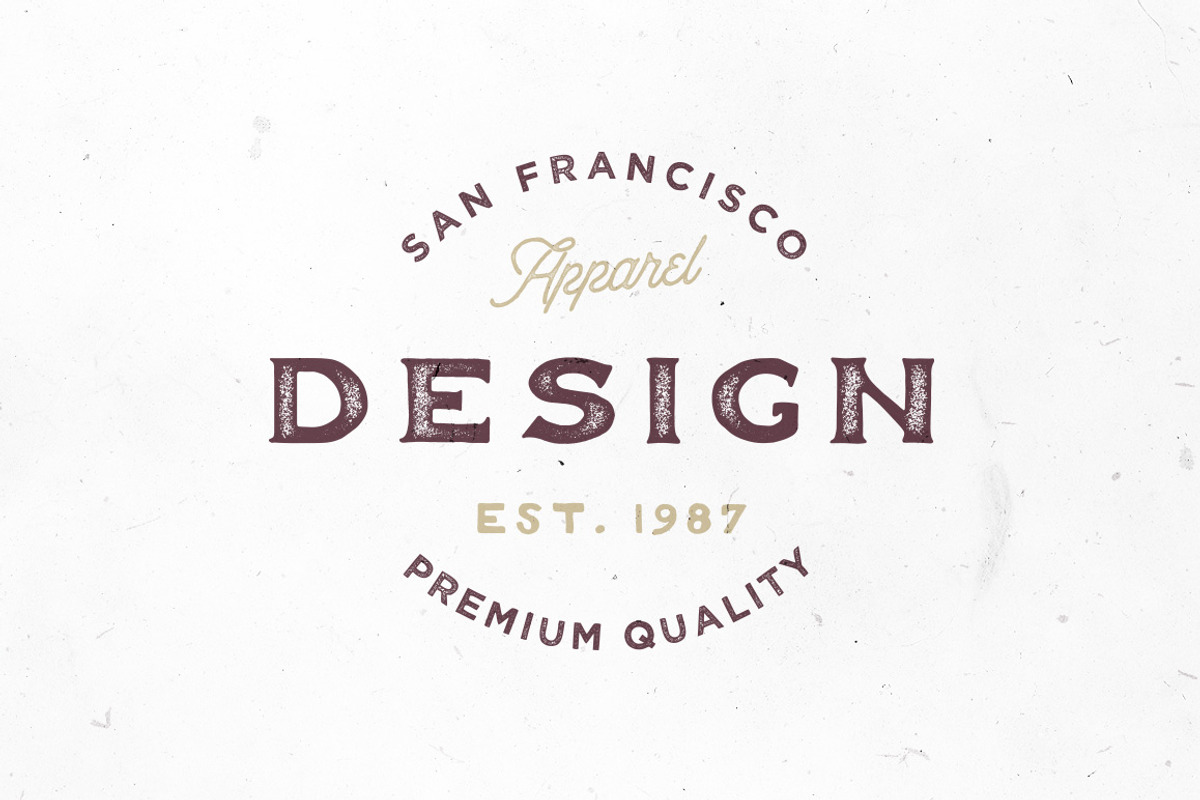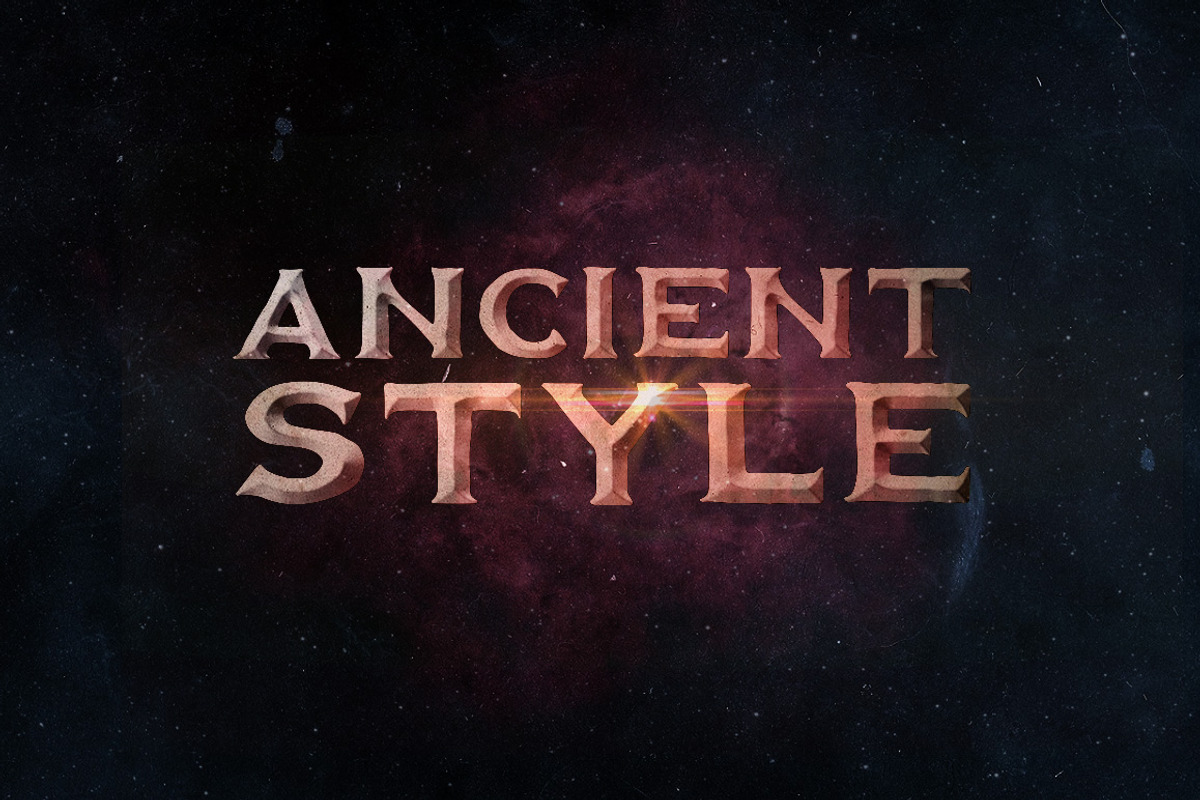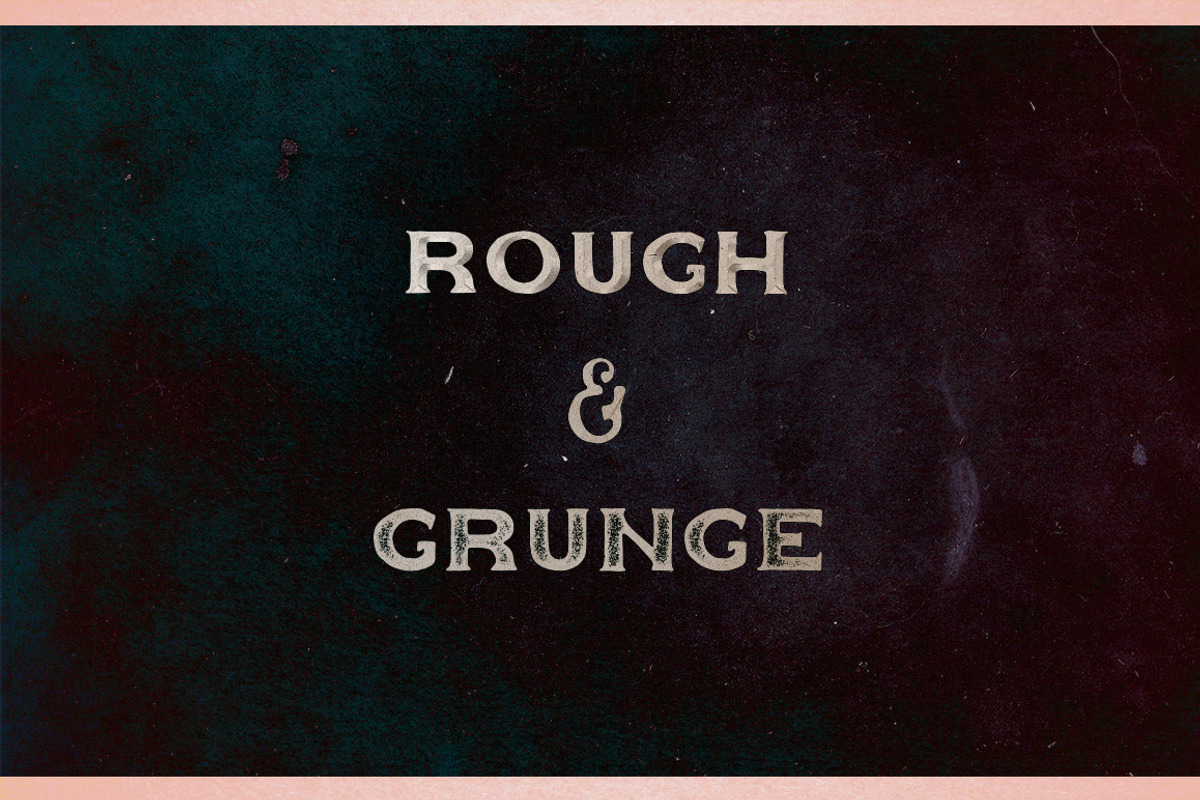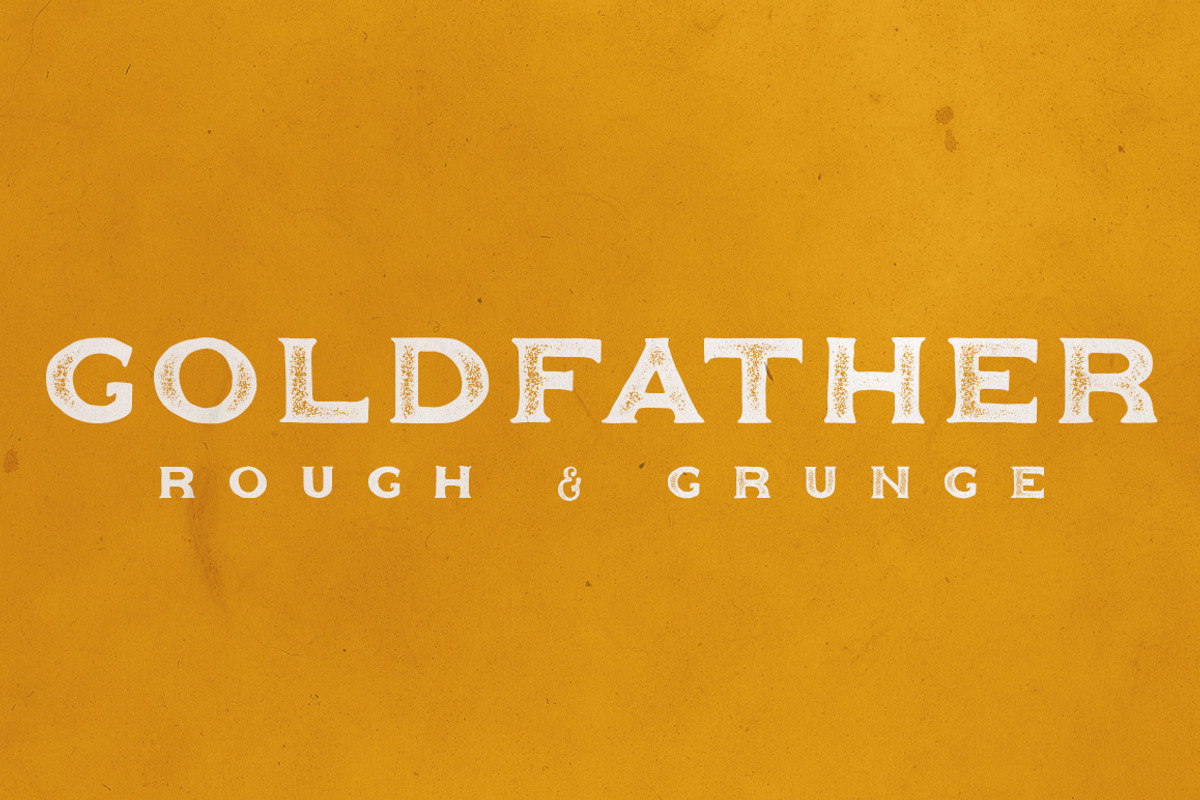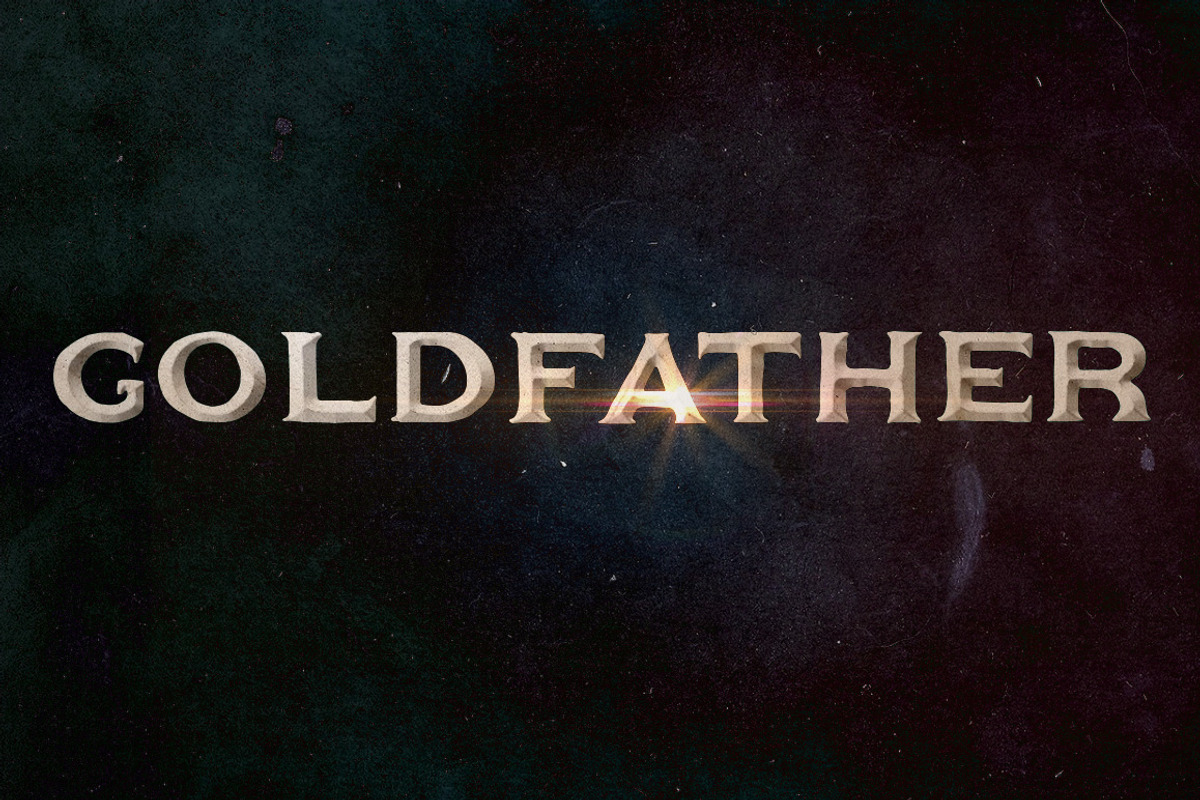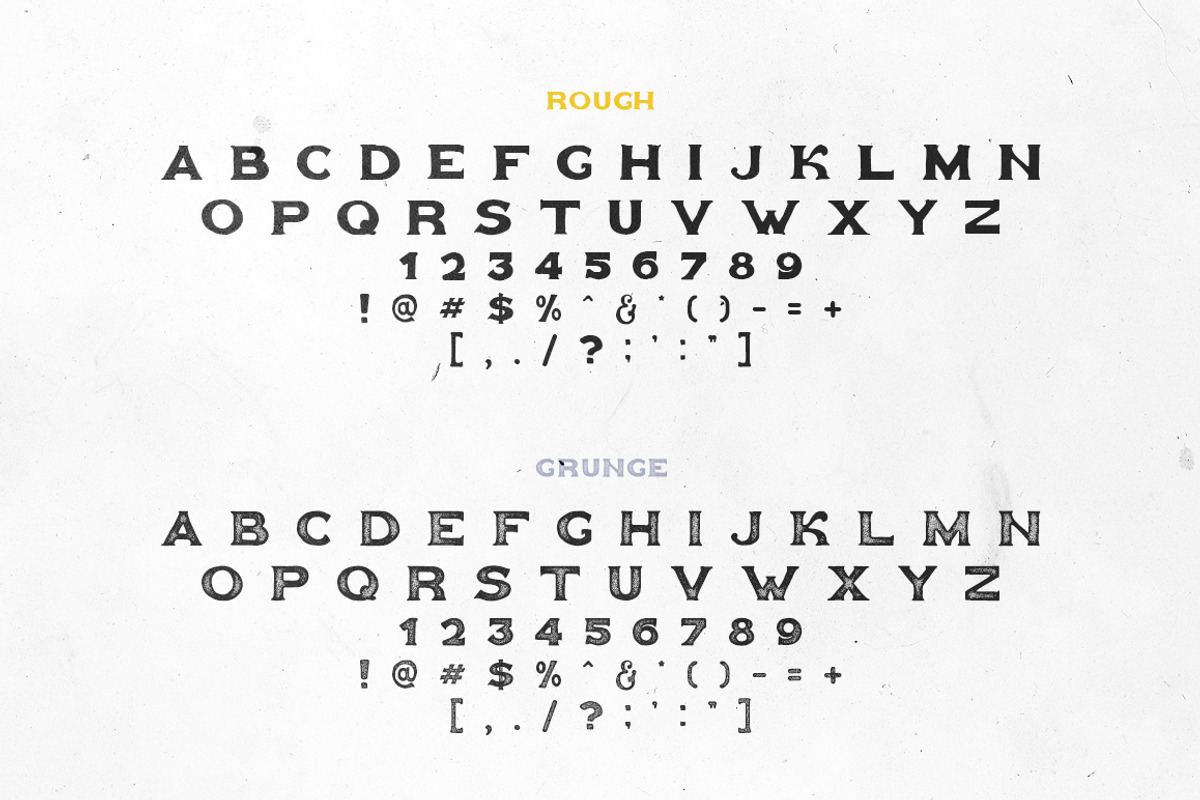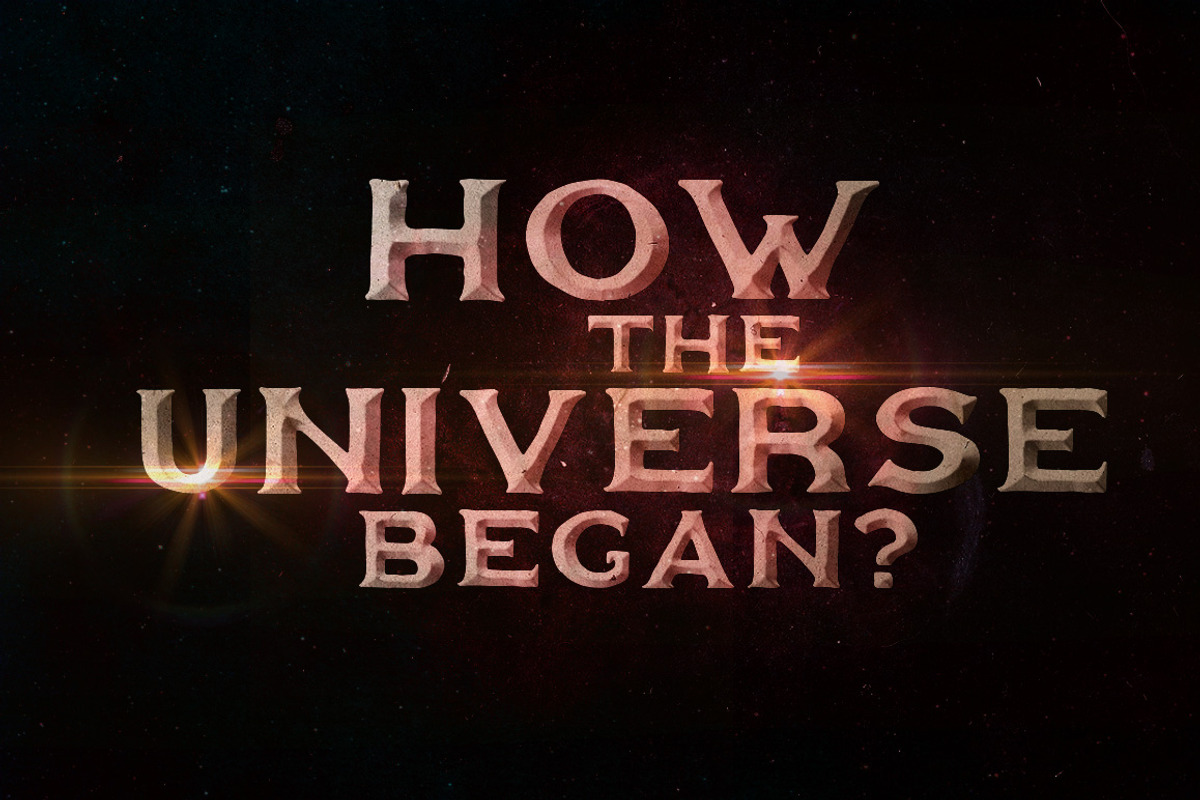
Goldfather Typeface
I'm glad to introduce you new typeface - Goldfather. It is handdrawn serif typeface come with 2 styles - Rough & Grunge (grunge texture effect). Perfectly combines with various Photoshop effects which looks great in the cutscenes for the film, in the credits for TV shows (especially on ancient themes)
Besides, use it for vintage logos, t-shirt prints, motivational and inspirational quotes, typography design, cards, flyers, event posters and more more uses.
- Goldfather contains all essential glyphs, numerals, puctuation symbols.